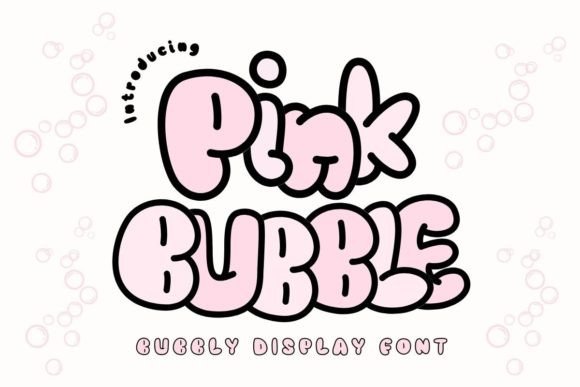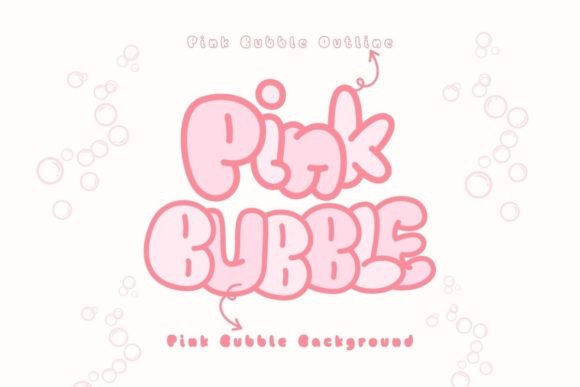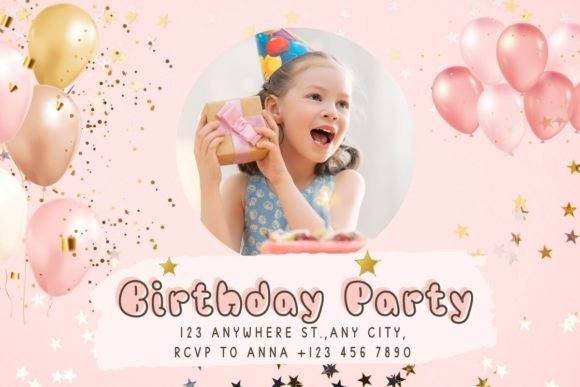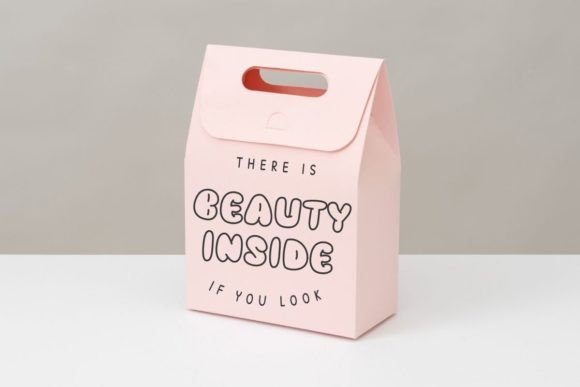
Pink Bubble Font
About the Pink Bubble Font
From logos to headlines, the Pink Bubble Font is the perfect choice for making a lasting impression. Introducing “Pink Bubble Font,” a fun and playful bubbly handwritten font that adds a touch of playful charm to any project. Whether you’re creating social media content, designing logos, crafting advertisements, or working on fashion and kids’ products, “Pink Bubble” brings a lighthearted and joyful vibe to your creations.
Pink Bubble Font’s playful charm makes it ideal for headlines, short text blocks on packaging, social media graphics, and children’s products. It works exceptionally well in branding for companies targeting a young, fun-loving demographic. Avoid using it for body text or lengthy paragraphs; its informal nature hinders readability in extended use.
Consider pairing Pink Bubble Font with a clean sans-serif like Open Sans for a balanced contrast, or a playful script font like Pacifico for a more whimsical feel. For a sophisticated yet playful look, a geometric sans-serif like Montserrat could be used to provide structure.
The font’s overall personality is undeniably cheerful and friendly, conveying a sense of lightheartedness and youthful energy. It’s best suited for brands aiming for a bright, approachable image.
Pink Bubble Font Usage Examples
Pink Bubble Font Example